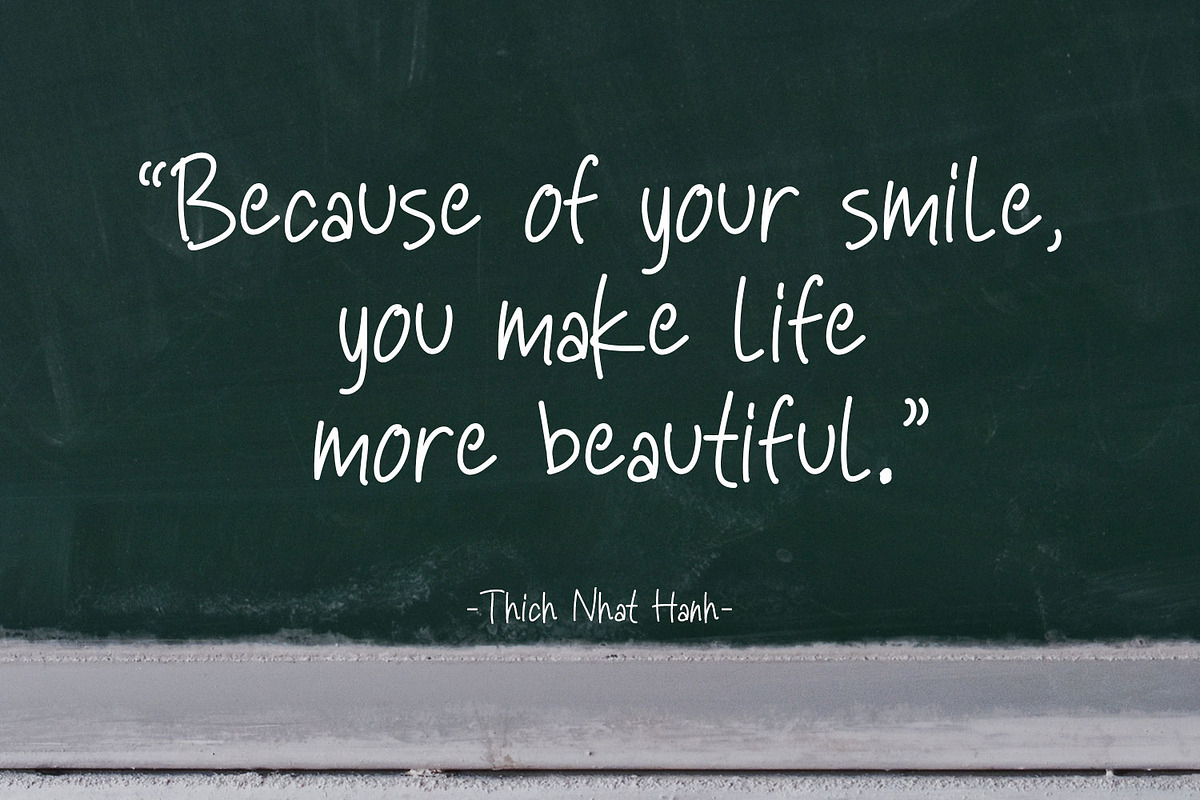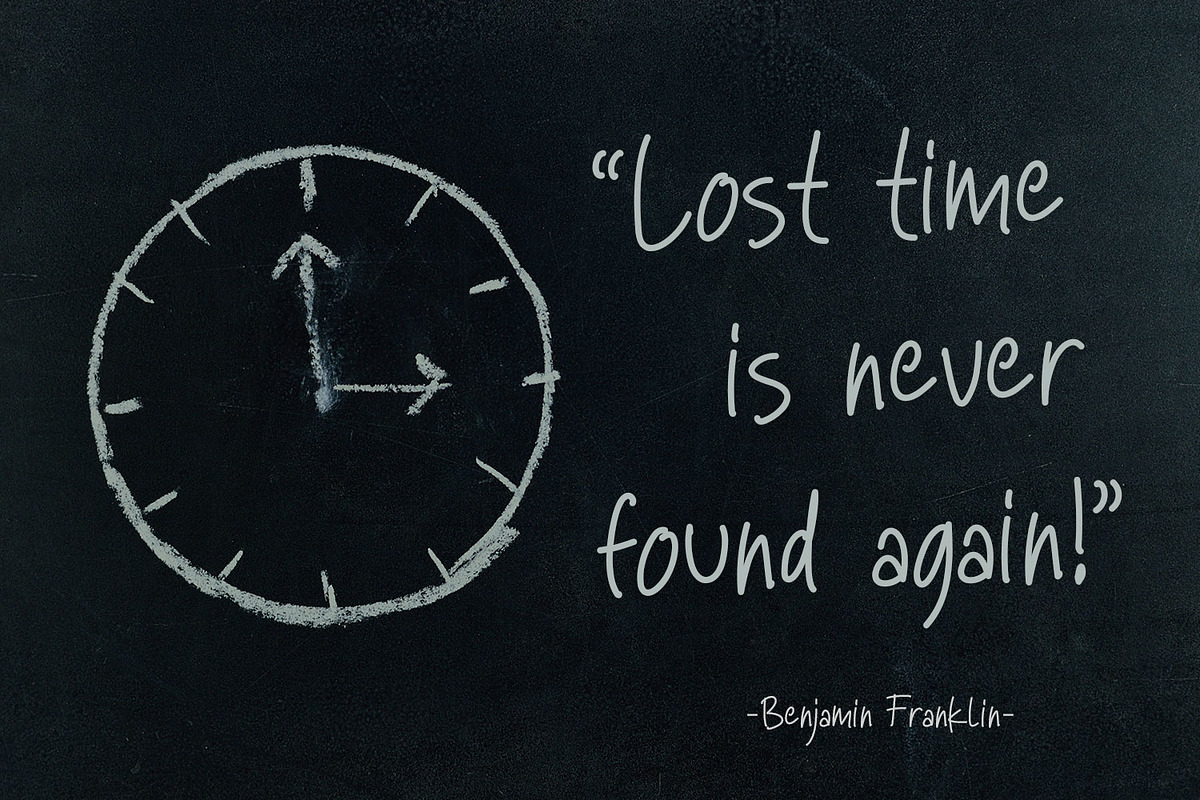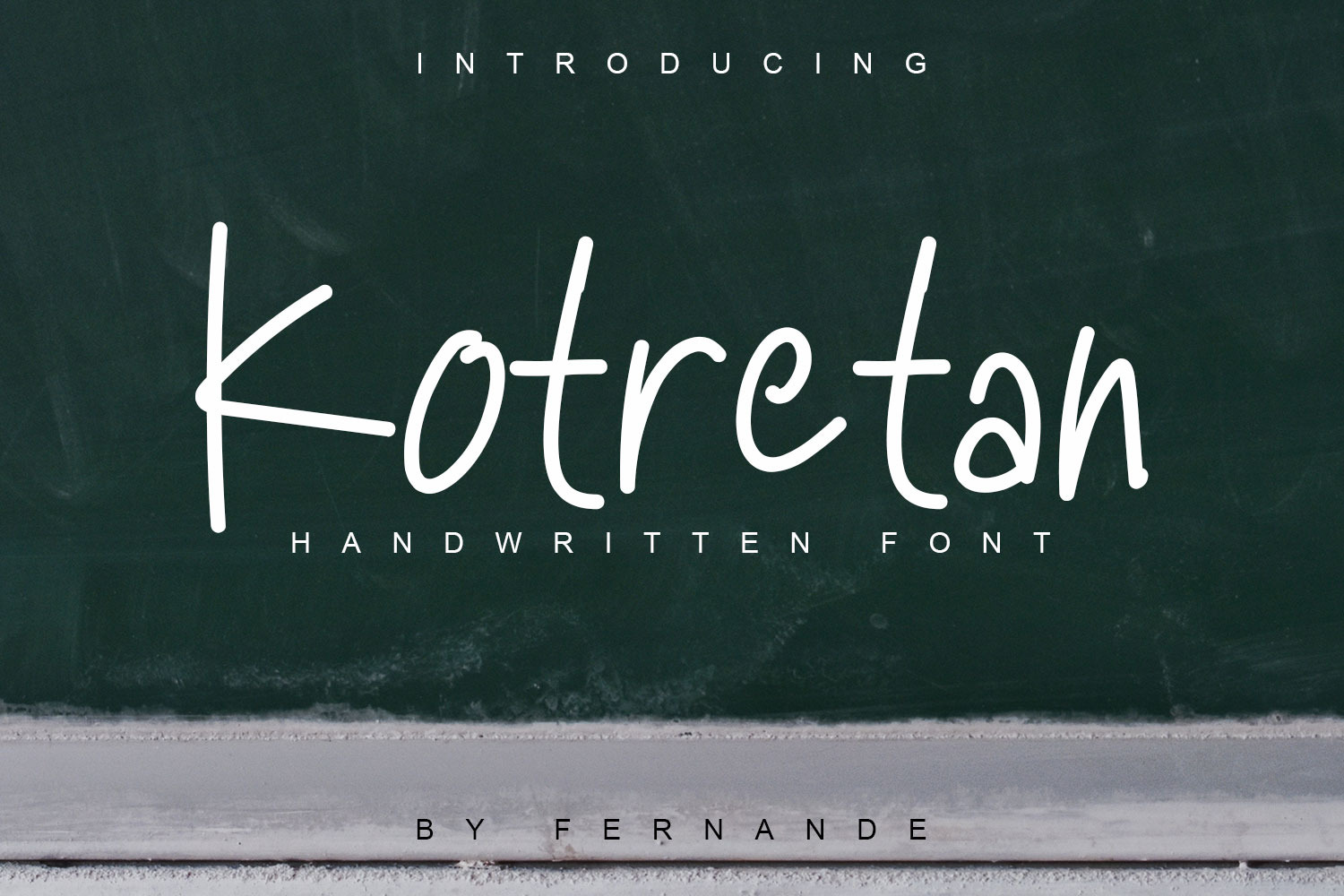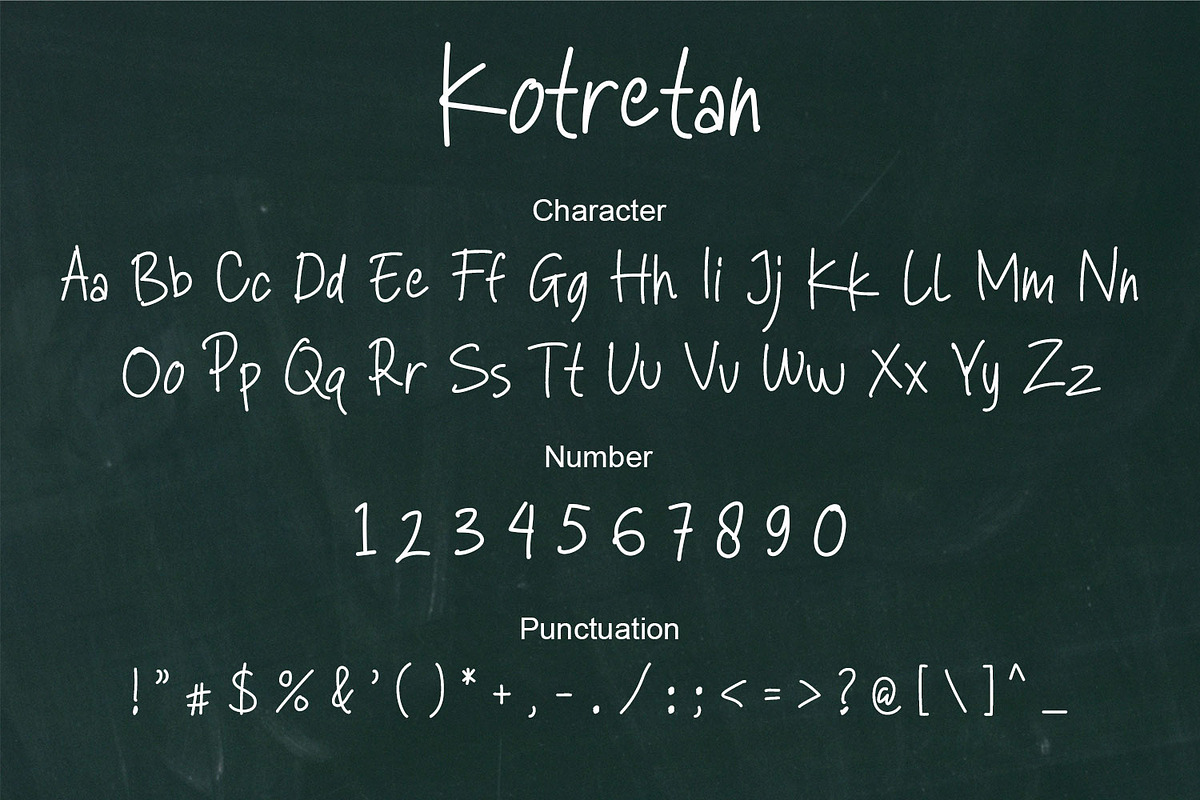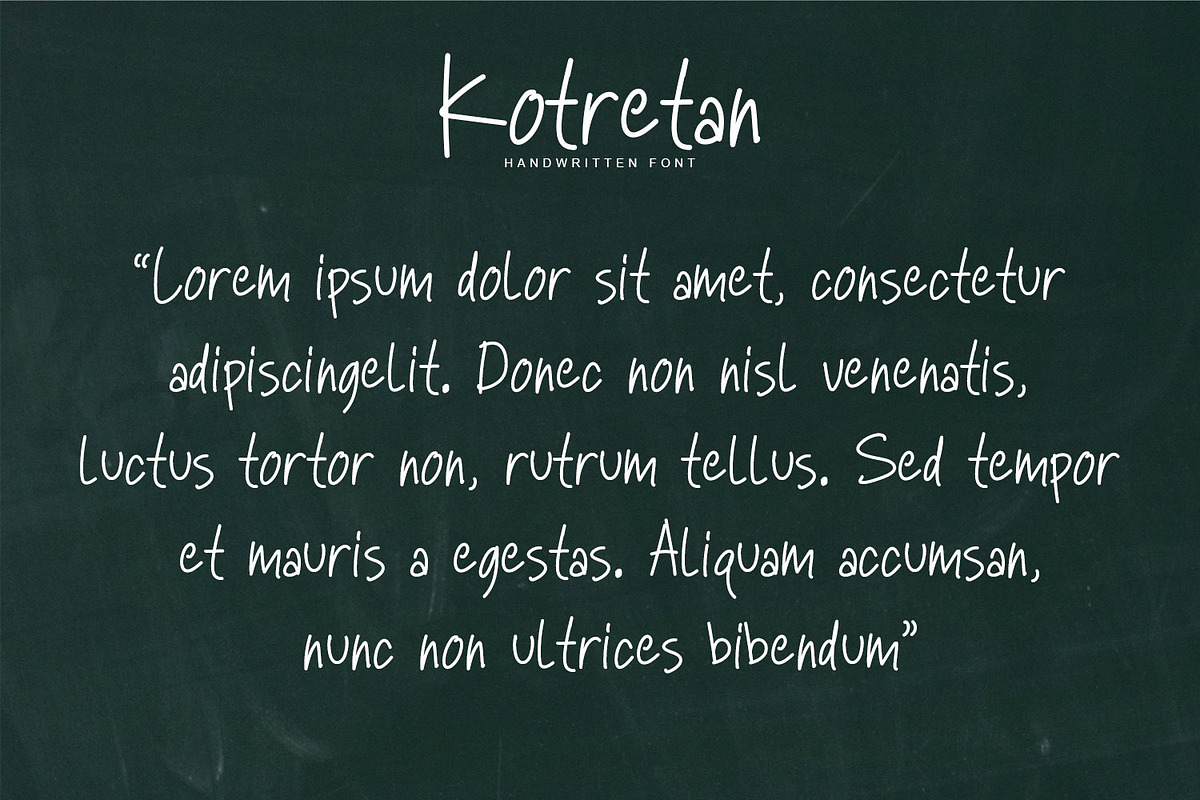
Kotretan Handwritten Font
Sprinkled with the essence of handwritten craftsmanship, Kotretan offers a calligraphic journey with each stroke. Its lightweight structure seamlessly melds with a charming slant, bestowing an informal allure on its character, transporting the users into a realm of genuine, friendly interactions. The versatile contours embellished with minute transformative details echo an animated, playful experience, echoing the brisk spontaneity of human handwriting. Unveiling a compelling presence, Kotretan is an ideal fit for distinctive graphics, elevating the appeal of posters, and banners to social media, and catalyzing the creative energy in any project, conveying a tale with a delicate, personal touch.